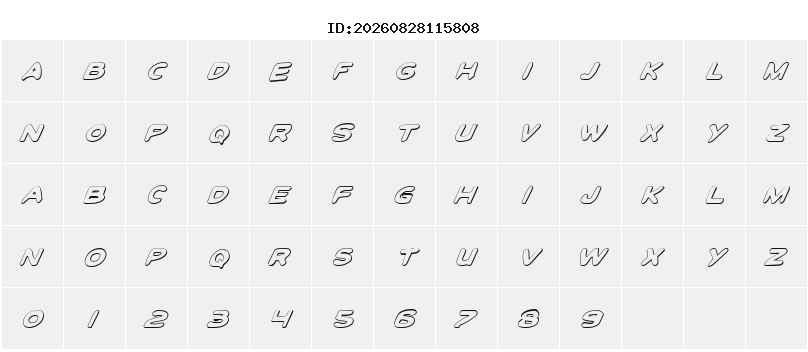
Toon Town Industrial Shad Ital Preview
• Font Name: Toon Town Industrial Shad Ital
• Font Style: Shad Ital
• Font ID: IconianFonts: Toon Town Industrial Shad Ital: 2005
• Full Font Name: Toon Town Industrial Shad Ital
• Version: Version 1.0; 2005; initial release
• PostScript Name: ToonTownIndustrialShadItal
About Toon Town Industrial Shad Ital.ttf
Toon Town Industrial Shad Ital.ttf is a modern, elegant sans-serif font designed for ultimate readability and visual harmony. Perfect for branding, headlines, web design, and print materials.